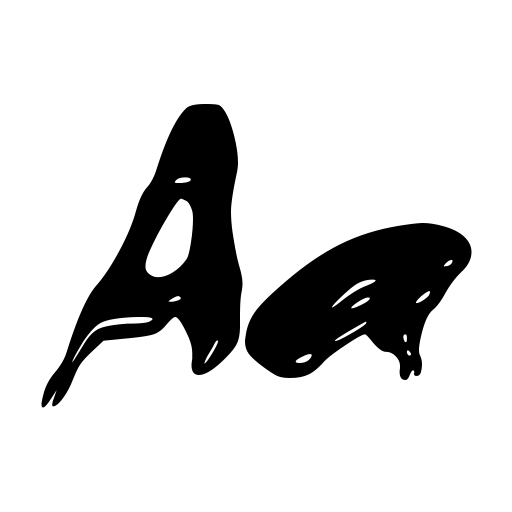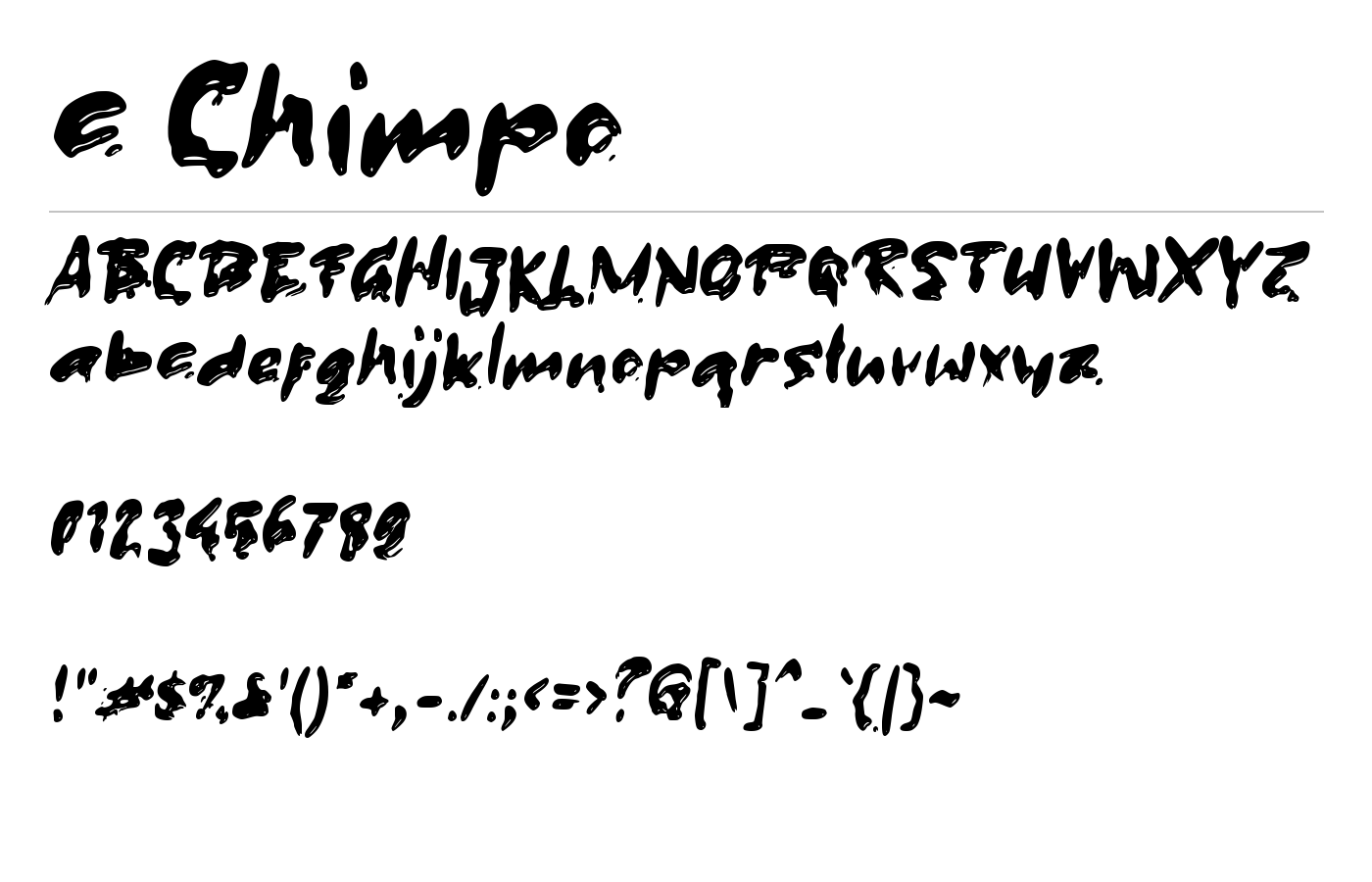
c Chimpo is a bold, expressive handwritten font that features uneven, brush-like strokes with a playful and dynamic feel. Its textured, organic shapes give it a casual yet energetic personality, making it an excellent choice for creative projects, informal branding, and eye-catching headlines where a lively and artistic touch is desired. This font works best in artistic, youthful, and fun contexts where personality and impact are key.
c Chimpo Font